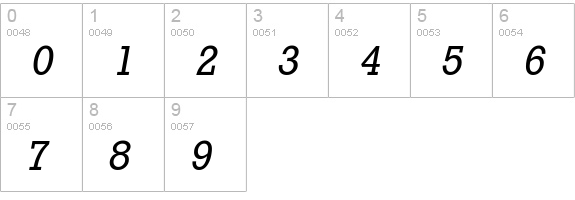
StaffordSerial-Italic is a distinctive, italic variant in the StaffordSerial typeface family \xE2\x80\x94 well suited to design and typography projects.
StaffordSerial-Italic font is a modern and stylish typeface that adds a touch of elegance to any design project. Its sleek and sophisticated italic style is perfect for creating eye-catching headlines, branding materials, or any creative project that requires a touch of sophistication. This font is not only visually appealing but also highly versatile, making it suitable for a wide range of design applications. Whether you're working on a website, a poster, a logo, or any other creative project, StaffordSerial-Italic font will help you achieve a professional and polished look. Best of all, StaffordSerial-Italic font is completely free to download at FontsMarket.com. So, you can add this beautiful typeface to your font collection without any cost. Don't miss out on the opportunity to enhance your designs with this elegant and stylish font - download StaffordSerial-Italic today!